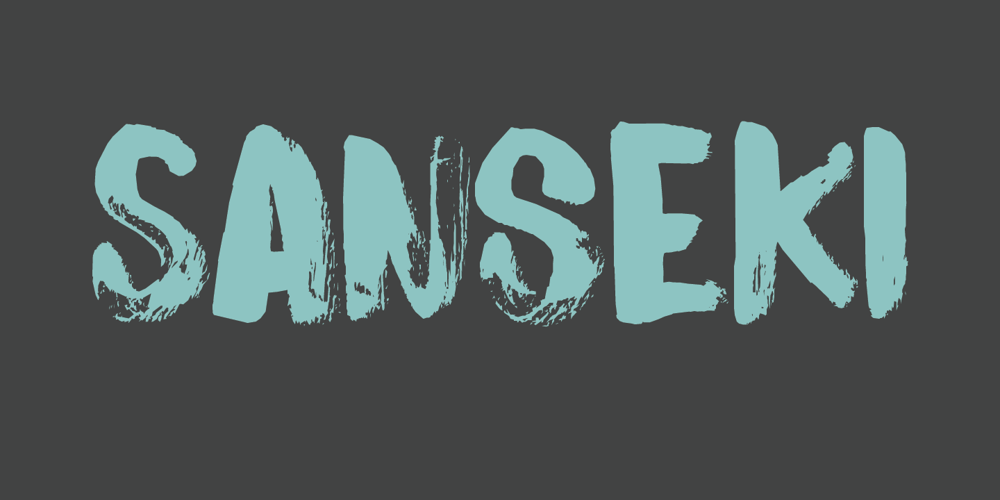
Sanseki Font Family was designed by David Kerkhoff and published by Hanoded. Sanseki contains 1 styles and family package options. The term Sanseki (Japanese for Three [Brush] Traces) is used to describe three famous Heian period calligraphers: Yaseki, Gonseki and Saseki. Not that I would ever dream of comparing my messy brush-work with theirs, but the name stuck and I kind of liked it. I used Chinese ink and a high quality brush (which I got in a sale actually) to create this font. All glyphs were hand painted in one go! Sanseki is a very detailed brush font. Upper and lower case letters mingle and there’s even an alternate for every lower case glyph. Comes with an abundance of diacritics.